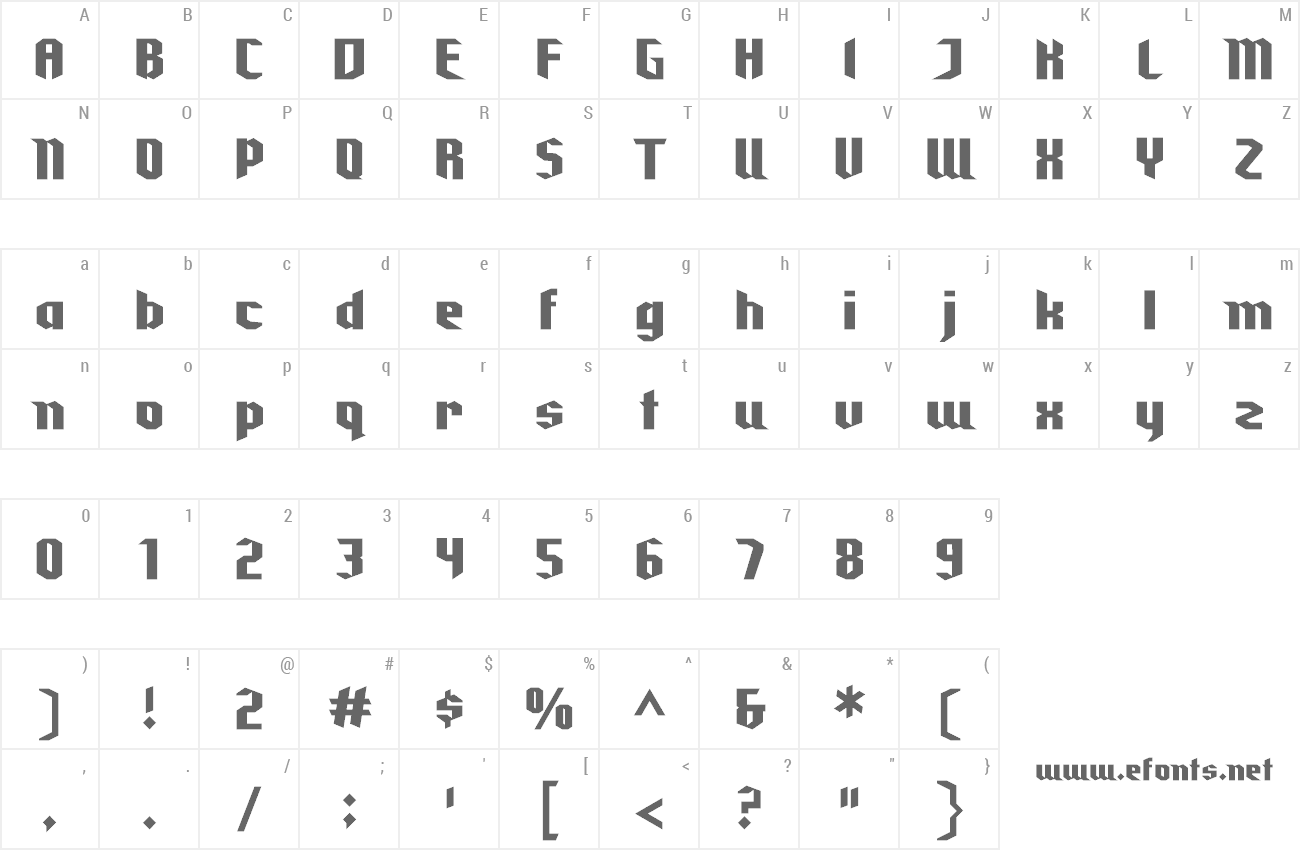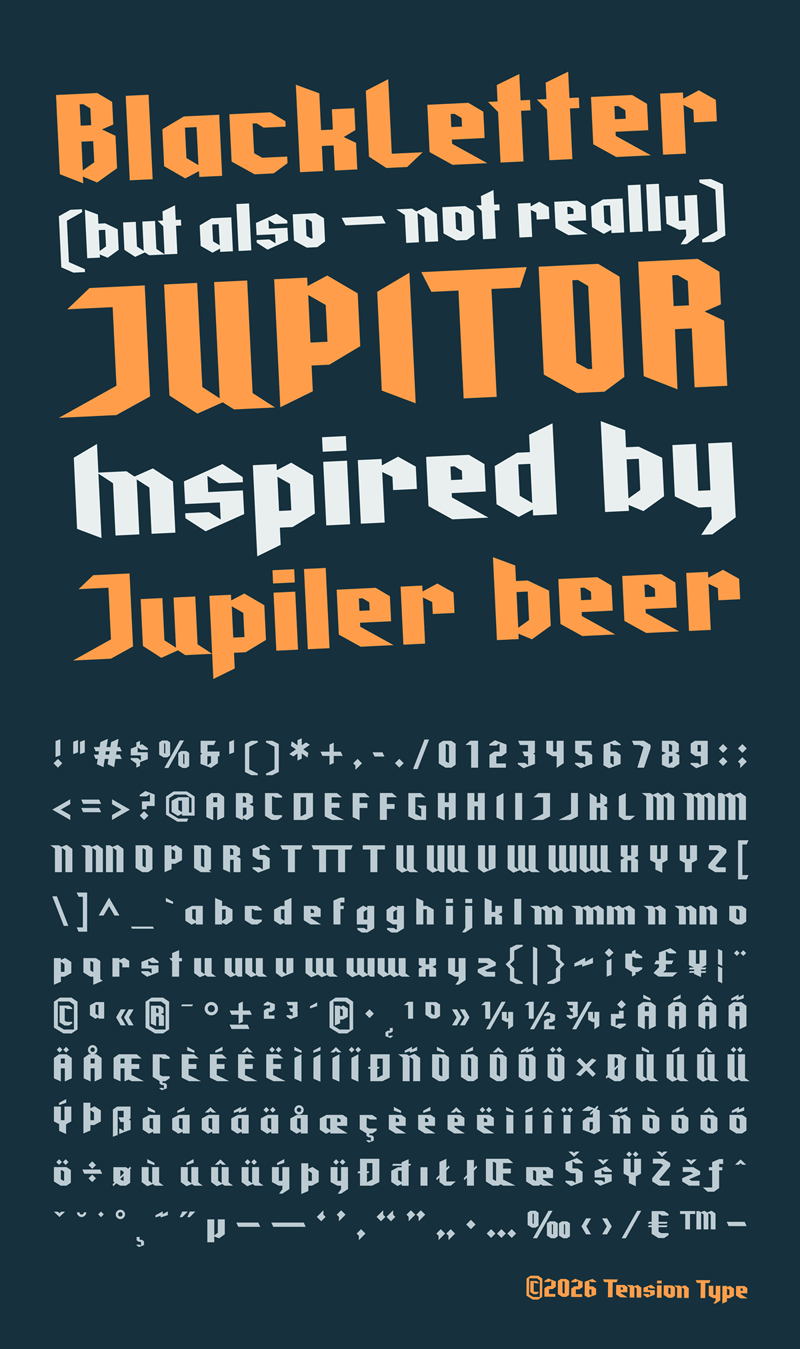
| Note by Tension Type | |
| Jupitor is a typeface created from the six letters used in the original Jupiler Beer logo. No such typeface existed, so I made one. |